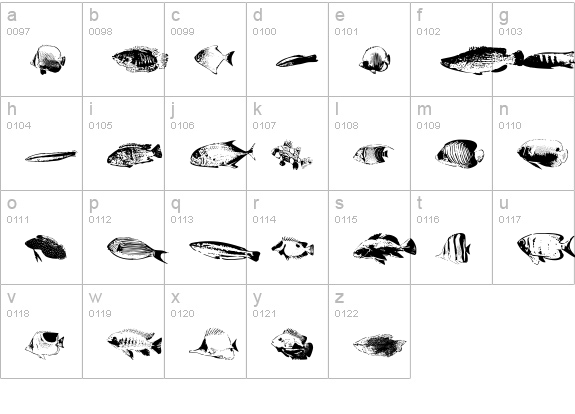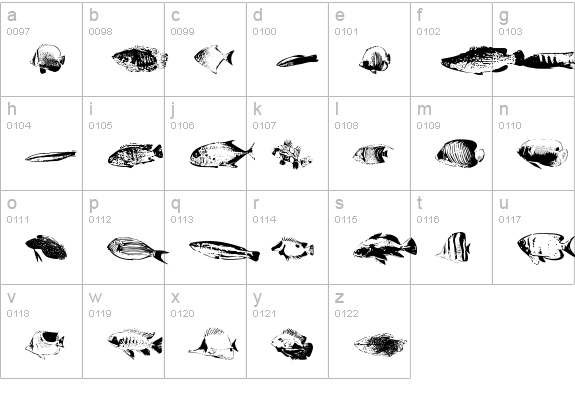
FishyPrint One AOE Font Details
FishyPrint One AOE font is a stunning display typeface that is perfect for adding a unique touch to your designs. With its playful and whimsical style, this font is sure to make a statement. The irregular shapes and bold lines give it a quirky and fun look that will stand out in any project. This font is not only visually appealing but also versatile, making it suitable for a wide range of design projects, from branding to packaging to social media graphics. Its bold and eye-catching appearance will captivate your audience and leave a lasting impression. And the best part? FishyPrint One AOE font is completely free to download at FontsMarket.com! So you can start using this delightful font in your designs right away without any cost. Don't miss out on this fantastic opportunity to enhance your projects with the charm and character of FishyPrint One AOE font.